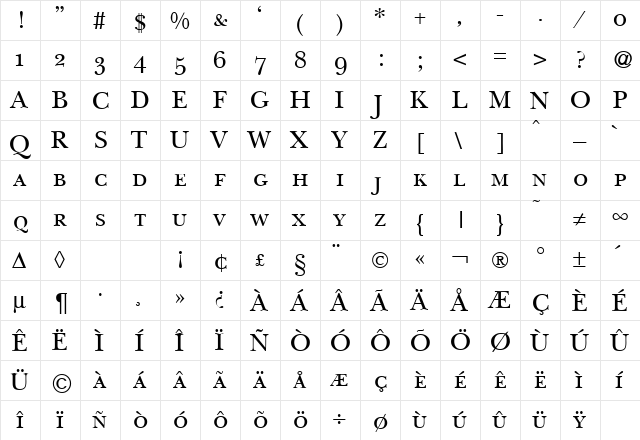
BaskervilleNovaTwoSmc Regular
BaskervilleNovaTwoSmc is a composed and adaptable typeface that performs quietly and consistently across a wide range of design contexts.